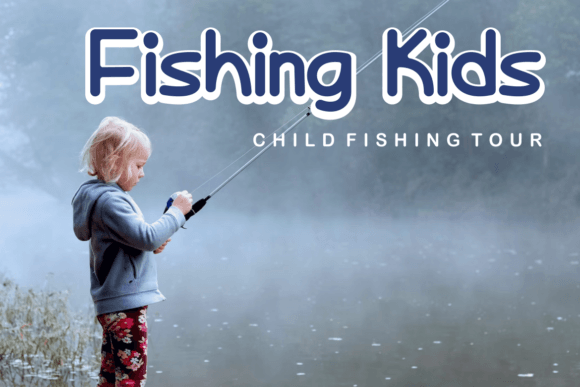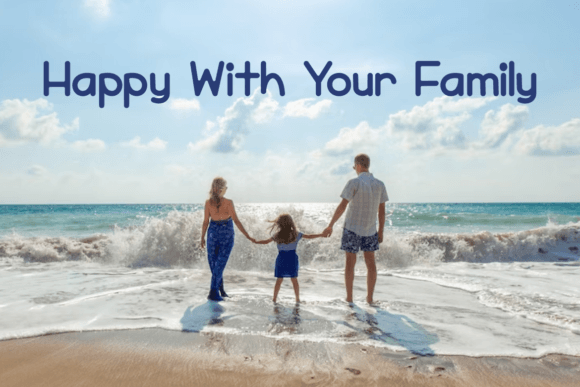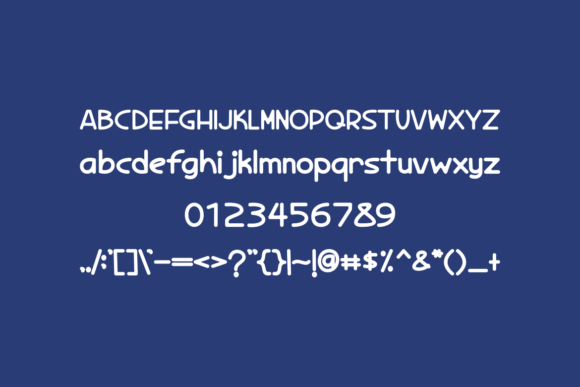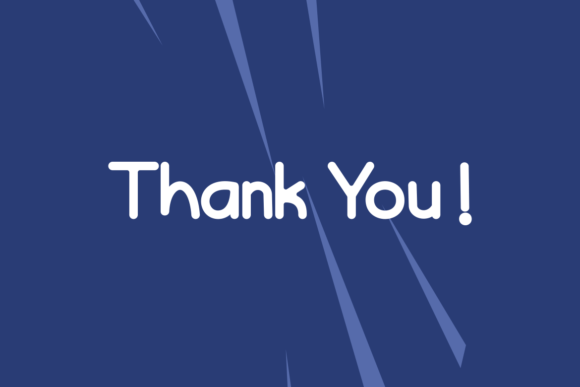
Unlocking the Power of Smilehook Font
Have you ever found yourself staring at a blank canvas, eager to bring your creative vision to life? The moment of truth arrives when you need to choose the perfect font to set the tone for your design project. For many designers, this is where the magic happens – and with the right font, it can be a truly transformative experience. That’s exactly what Smilehook Font promises to deliver – a friendly and neat handwritten font that will brighten up even the most mundane designs.
Whether you’re working on a high-profile branding campaign or a personal creative project, having a reliable design resource like Smilehook Font in your arsenal can make all the difference. With its transparent background and high-quality aesthetic, this font is perfect for designers who want to add a touch of personality to their work.
Key Features of Smilehook Font
- High-quality design resource with a unique, modern aesthetic, perfect for creative projects.
- Includes a range of glyphs and characters, making it suitable for a variety of creative projects.
Honest Review: Smilehook Font
I recently came across the Smilehook Font and I have to say, it’s a great addition to any designer’s toolkit. The font itself is quite versatile and works well for a variety of creative projects, from posters to business cards.
- ✨ High-quality design: The font is well-crafted and has a professional look to it.
- ✨ Versatile: It can be used in a wide range of creative projects, from casual to formal.
- ⚠️ Limited font styles: The font only comes in a few different styles, which may limit its use in certain projects.
Overall, I’m quite impressed with the Smilehook Font. It’s a great design resource for anyone looking for a high-quality, versatile font. With a few limitations in mind, I would definitely recommend it to fellow designers.
Tips for Getting the Most Out of Smilehook Font
To get the most out of the Smilehook Font, use it with a transparent background to create a clean and modern look. This font is perfect for creative projects, such as logo design, social media graphics, and presentations.
The Smilehook Font is commonly used in design projects that require a high-quality, unique font. Some common use cases include: logo design, branding materials, and marketing materials.